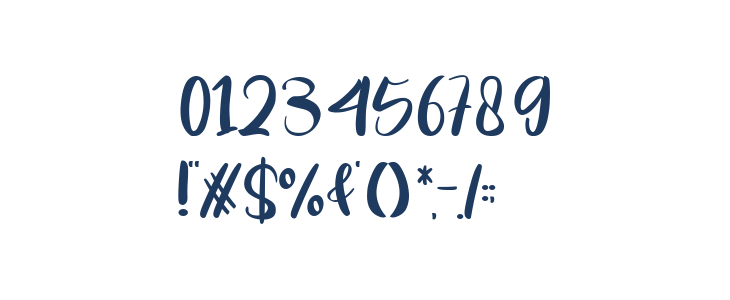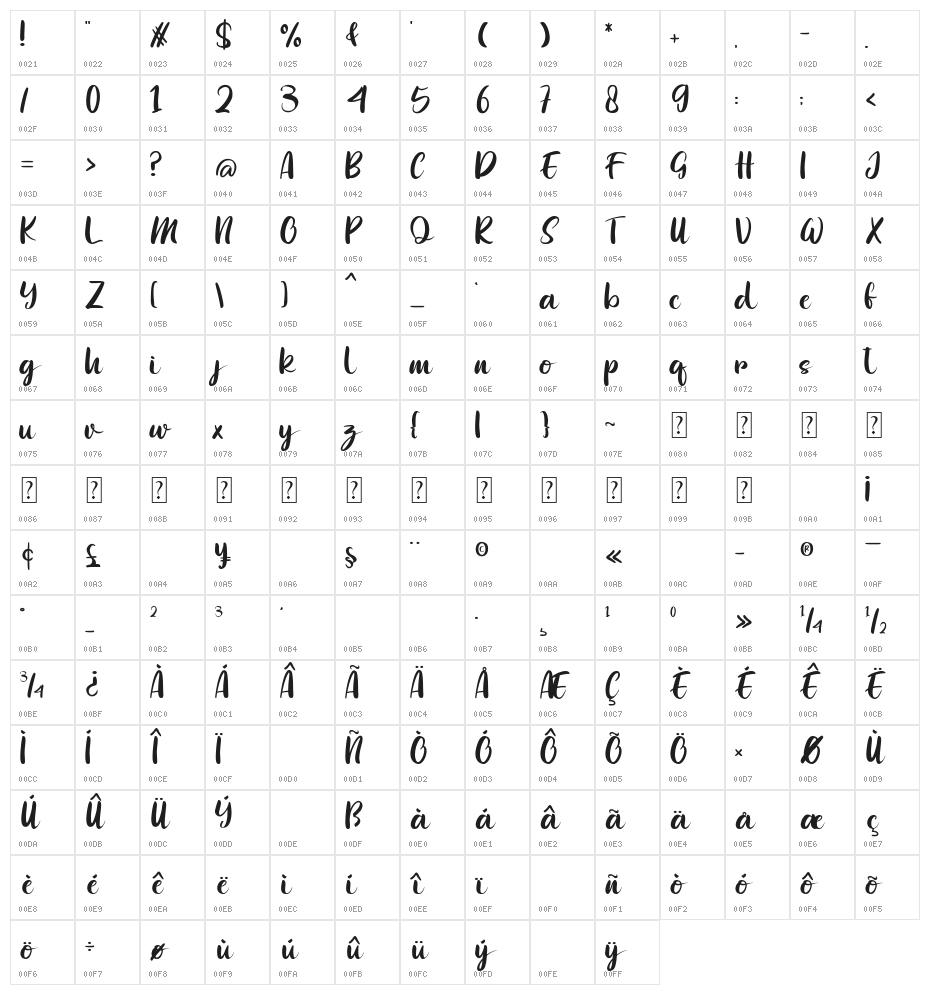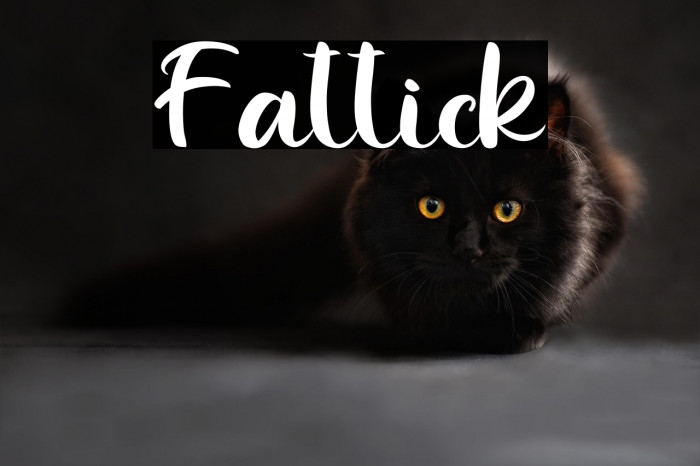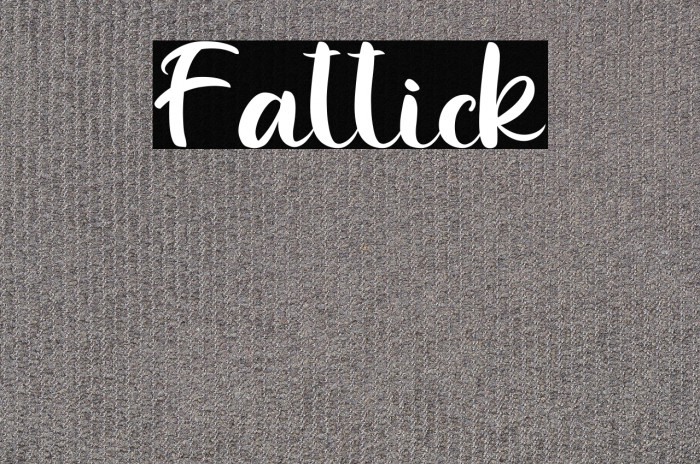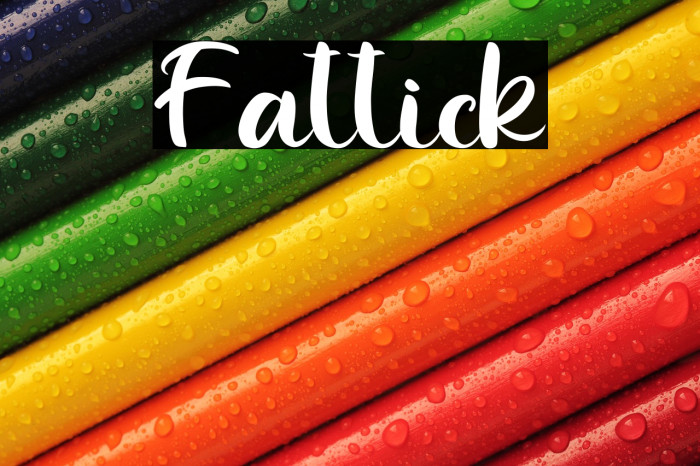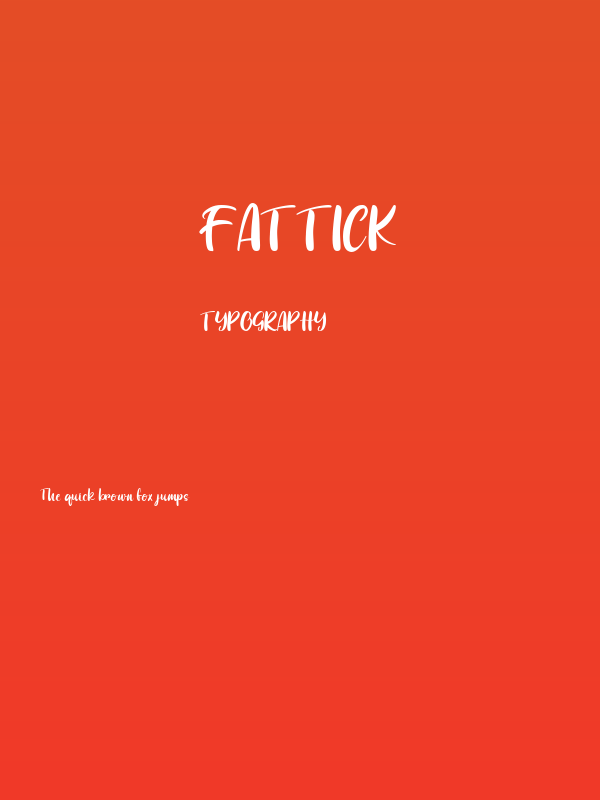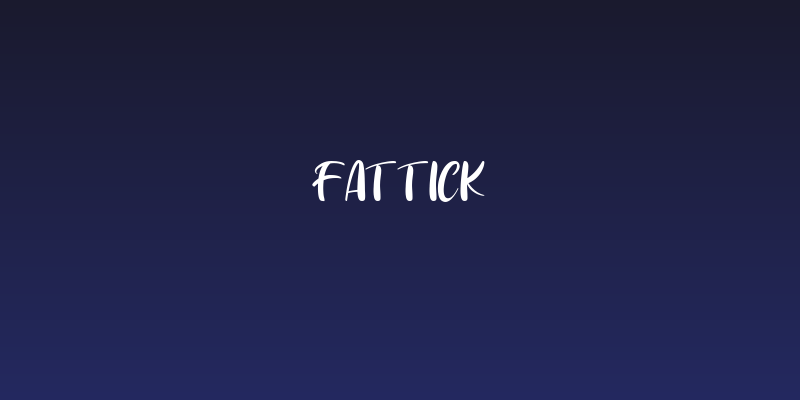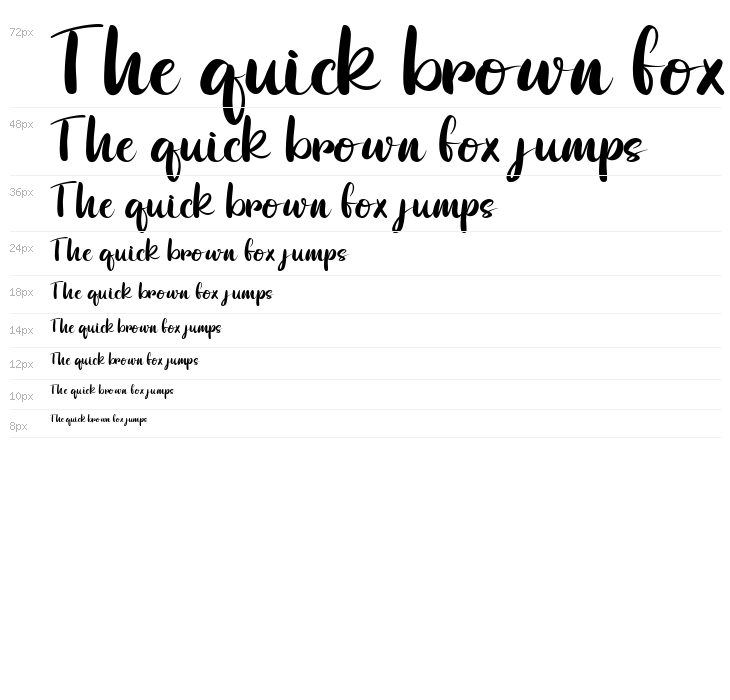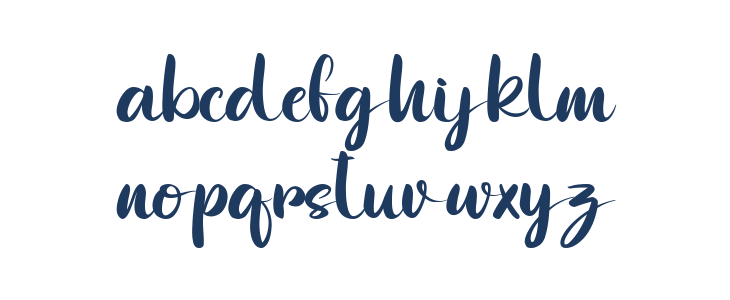
Fattick Font
Fattick Description
This font features a bold, expressive script style with a handwritten feel. The characters are fluid and dynamic, with a playful yet elegant appearance. The uppercase letters are slightly larger and more pronounced, while the lowercase letters maintain a consistent flow. The numbers and special characters are designed to match the overall aesthetic, providing a cohesive look. The strokes vary in thickness, adding a sense of movement and energy to the text. This font is perfect for projects that require a personal touch or a creative flair.